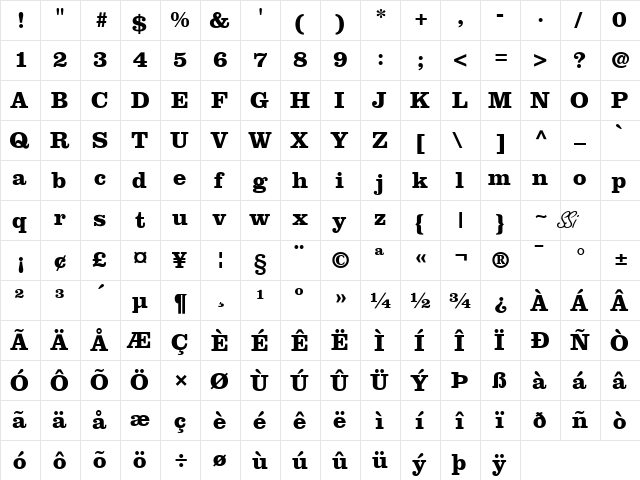
Introit SSi Bold Font Preview
Introit SSi Bold
Design Context for Introit SSi Typeface
Introit SSi is a composed and adaptable typeface that performs quietly and consistently across a wide range of design contexts. Its bold stroke weight gives it real presence on the page.